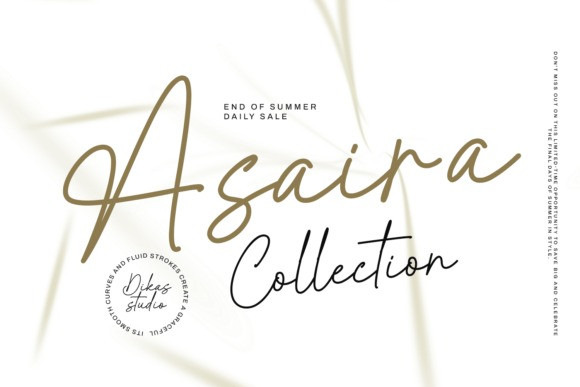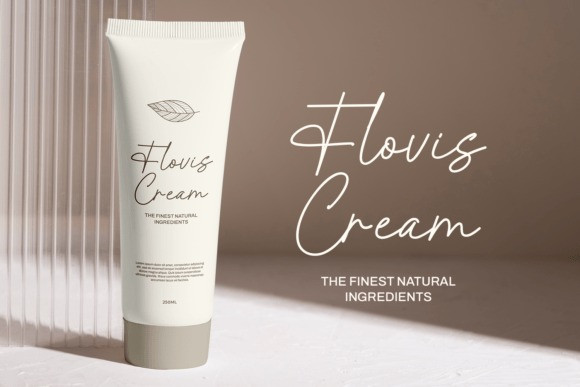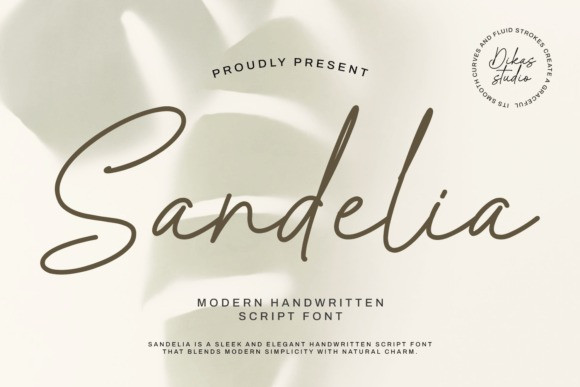
Sandelia Script Font
Sandelia Script Font is a graceful monoline script font designed with elegant curves and a flowing, natural rhythm that captures the beauty of modern hand lettering. Inspired by authentic signature styles, this font brings a sense of refinement, charm, and personal touch to every design.
Perfectly suited for fashion logos, luxury branding, boutique packaging, personal signatures, and high-end promotional materials, Sandelia delivers sophistication in every stroke. Its handcrafted appearance makes it ideal for expressing individuality and class—from stylish name logos to minimalist brand identities.
Whether you’re building a fashion label or designing a signature watermark, Sandelia helps you communicate elegance with ease.